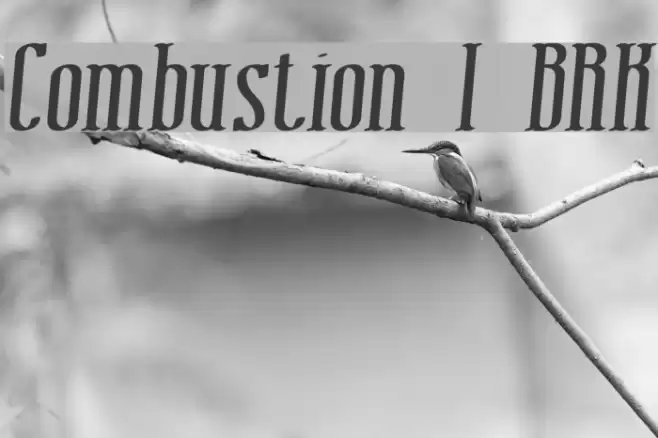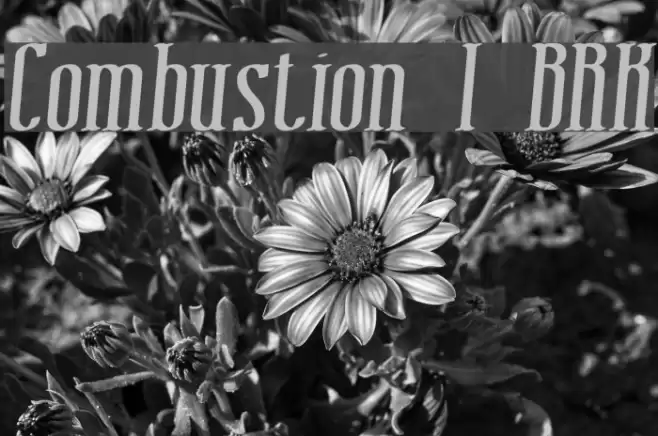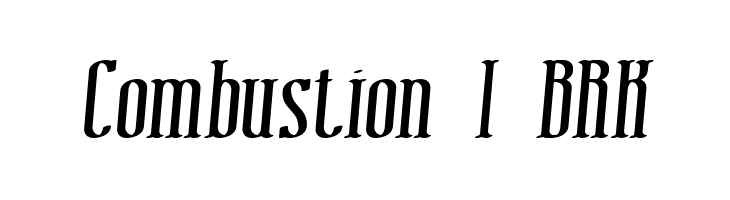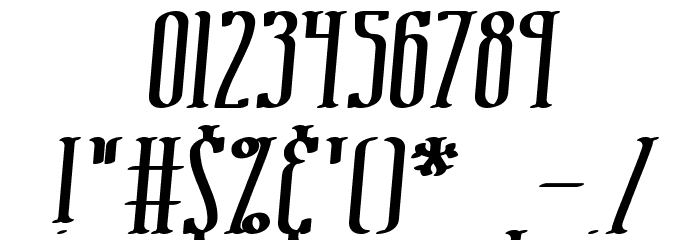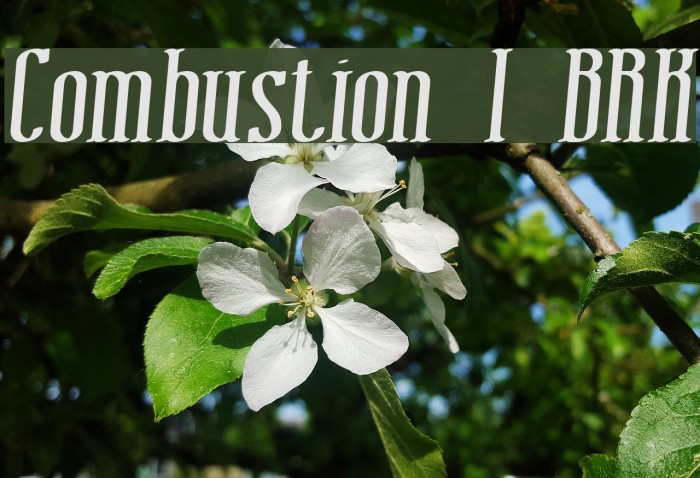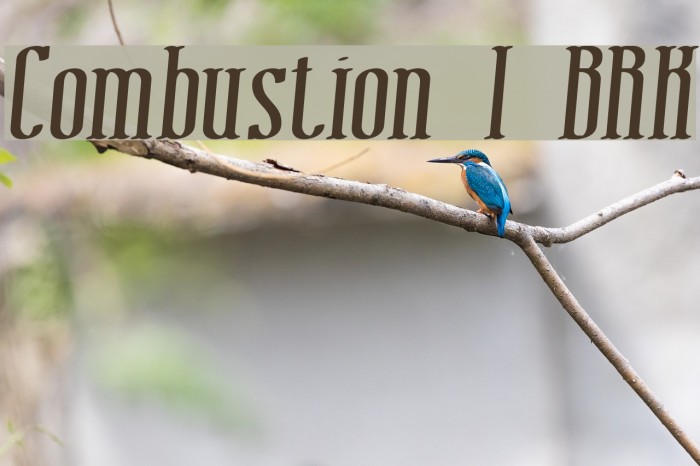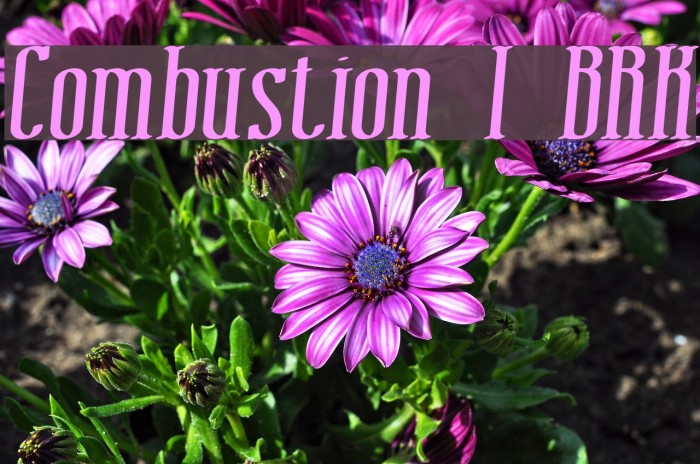
Combustion I BRK Font
Combustion I BRK Description
This font features a bold and dynamic style with a distinct slant, giving it a sense of movement and energy. The characters are tall and narrow, with sharp, angular serifs that add a touch of elegance and sophistication. The uppercase letters are particularly striking, with a strong vertical emphasis and a slight curvature that enhances their visual impact. The lowercase letters maintain the same dynamic quality, with a consistent slant and sharp serifs. Numbers and special characters follow the same design principles, ensuring a cohesive look across all elements. This font's unique style makes it ideal for projects that require a bold and eye-catching typeface.
A bold, dynamic font with a slant and sharp serifs, ideal for impactful designs from Script fonts.
- Proposed Projects: Perfect for headlines, posters, branding, and any design that requires a strong visual presence.